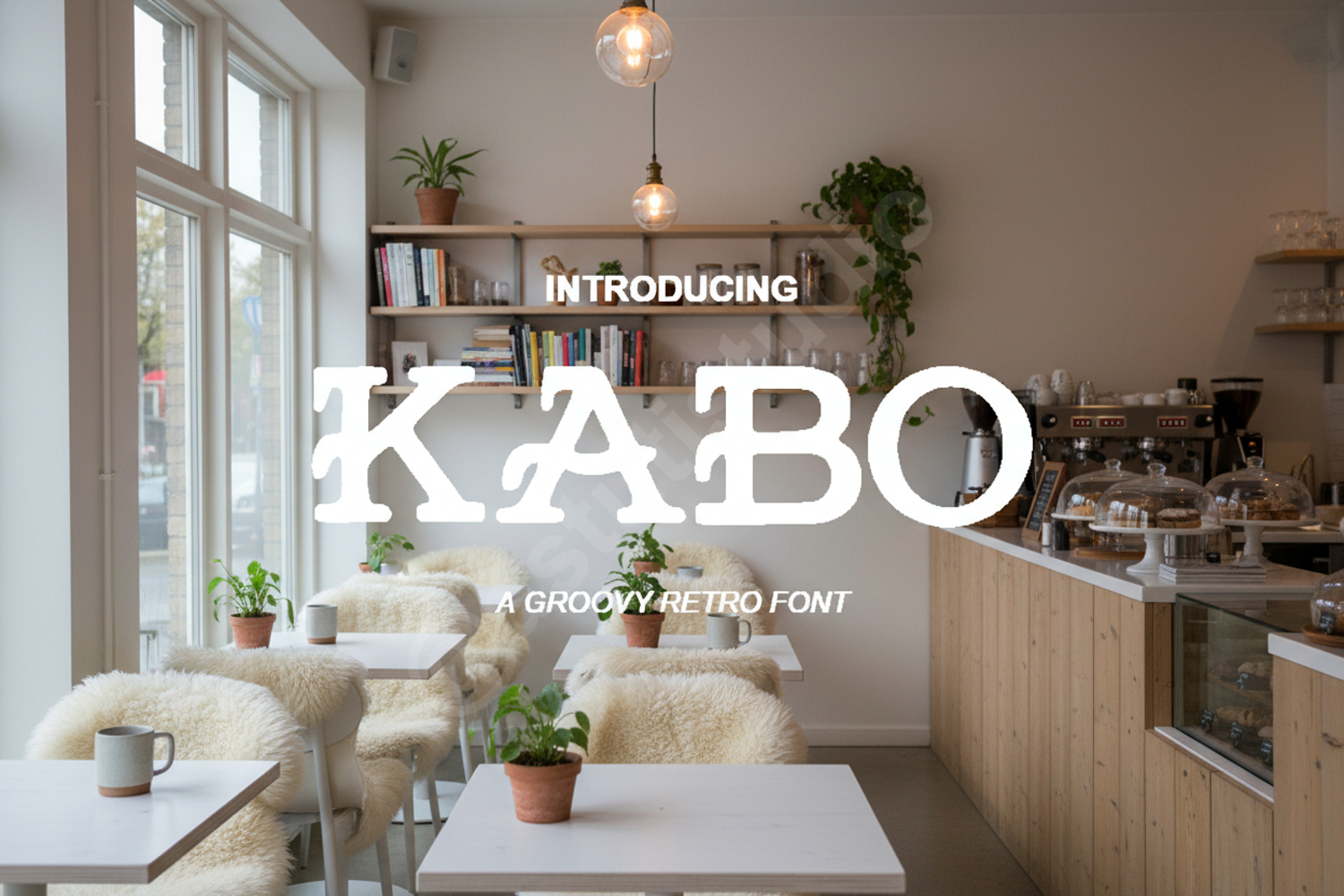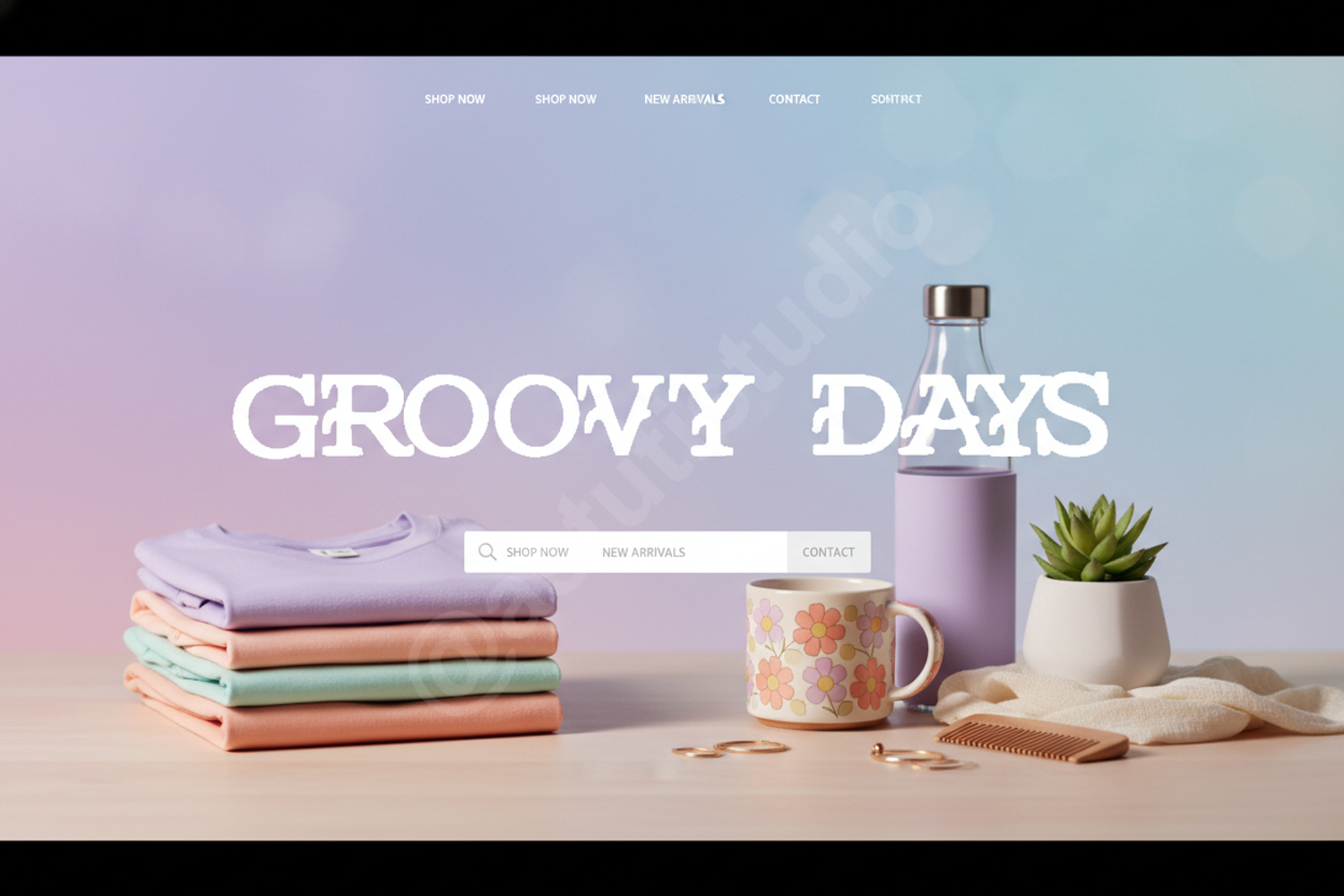
Kabo - Bold Modern Geometric Sans Serif
Kabo
Elevate your creative projects with Kabo, a premium geometric sans serif font that balances modern sophistication with bold impact. Designed with clean lines and a strong visual presence, Kabo is the perfect choice for designers looking to create a lasting impression. Whether you are working on a high-end brand identity or a minimalist editorial layout, this font provides the versatility and professional quality you need to stand out.
- Full set of uppercase and lowercase letters
- Comprehensive numerals and punctuation
- Multilingual support for global design projects
- Branding and Identity: Create memorable logos and cohesive brand guidelines.
- Social Media: Design eye-catching Instagram posts and YouTube thumbnails.
- Print Media: Perfect for high-impact posters, flyers, and magazine headers.
- Web Design: Ensure clean legibility for website headers and hero sections.
- Packaging: Add a modern, professional touch to product labels and box designs.